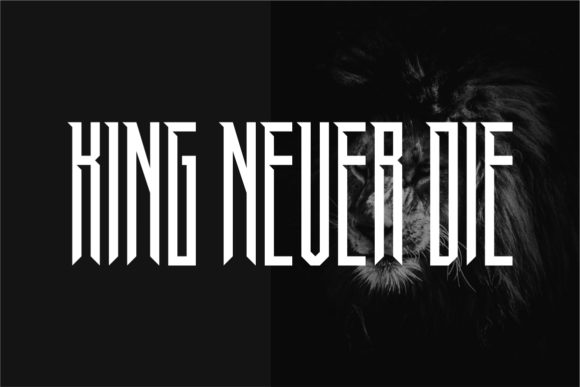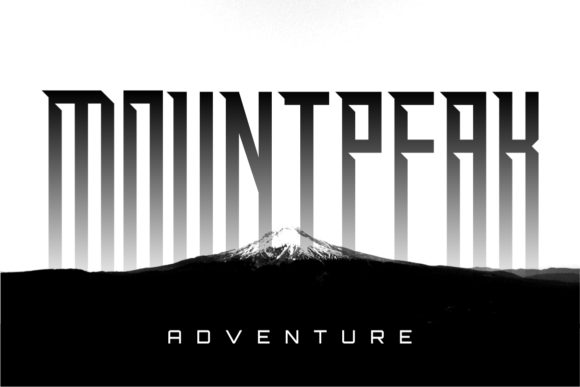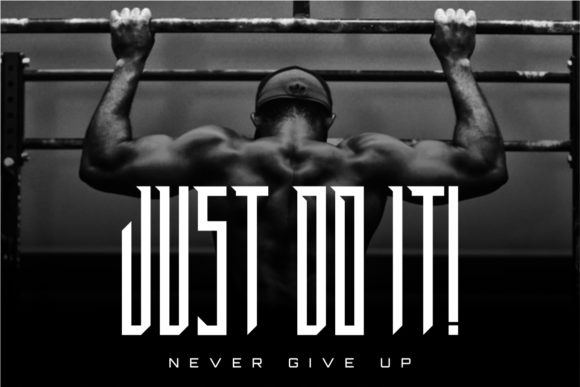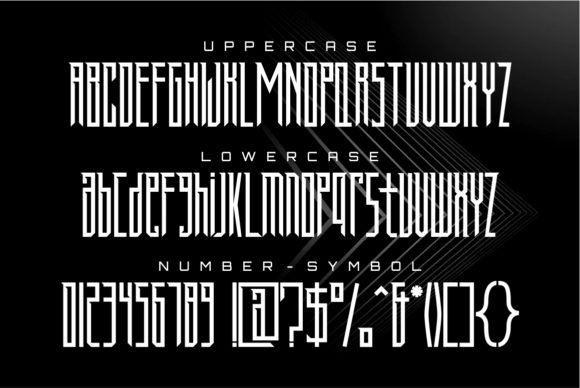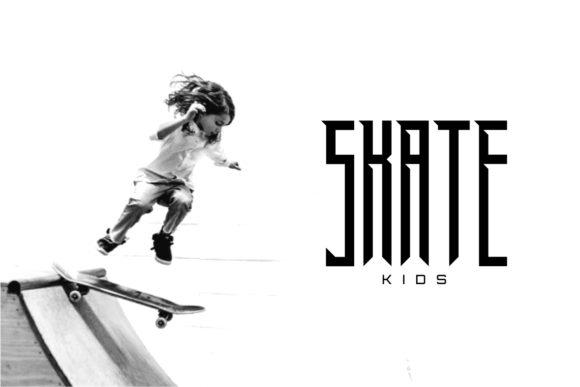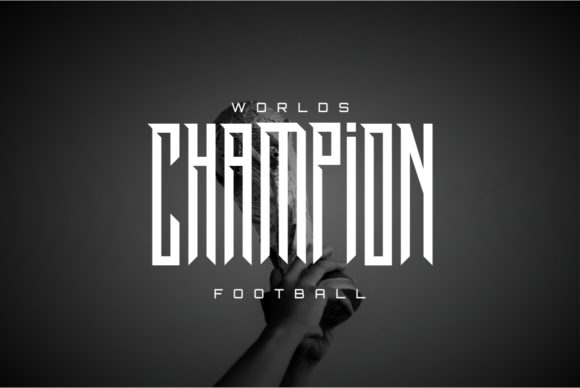
Unleash Your Creativity with Armor Font: The Ultimate Display Font
In the world of typography, fonts play a crucial role in conveying messages, expressing emotions, and creating visual identities. For designers, crafters, and marketers, finding the right font can make all the difference in their creative projects. If you’re looking for a powerful and versatile display font, look no further than Armor Font. In this article, we’ll explore the features, benefits, and uses of Armor Font, and why it’s a must-have for your design arsenal.
What is Armor Font?
Armor Font is a stunning condensed display font that boasts sharp ends and a geometric look. Its sleek and modern design makes it perfect for a wide range of applications, from sports and branding to posters, logos, headers, and apparel designs. With its bold and edgy appearance, Armor Font is sure to grab attention and leave a lasting impression.
Key Features of Armor Font
- Condensed Design: Armor Font is a condensed font, which means it’s narrower and taller than regular fonts. This makes it ideal for headlines, titles, and short phrases where you want to make a big impact.
- Sharp Ends: The sharp ends of Armor Font give it a bold and edgy look that’s perfect for sports, action, and energy-related designs.
- Geometric Look: The geometric design of Armor Font makes it versatile and easy to pair with other fonts and design elements.
- Highly Legible: Despite its condensed design, Armor Font is highly legible, even at smaller sizes.
Uses of Armor Font
Armor Font is a versatile font that can be used in a variety of creative projects, including:
- Sports Designs: Armor Font is perfect for sports-related designs, such as team logos, jerseys, and promotional materials.
- Branding and Logos: The bold and edgy design of Armor Font makes it ideal for branding and logos, especially for companies that want to convey a sense of strength and energy.
- Posters and Flyers: Armor Font is a great choice for posters and flyers, where you want to grab attention and make a big impact.
- Headers and Titles: Use Armor Font to create bold and eye-catching headers and titles for your website, blog, or social media channels.
- Apparel Designs: Armor Font is perfect for apparel designs, such as t-shirts, hoodies, and hats.
Benefits of Using Armor Font
So, why should you use Armor Font in your creative projects? Here are just a few benefits:
- Unique and Memorable: Armor Font is a unique and memorable font that will help your designs stand out from the crowd.
- Versatile: Armor Font is highly versatile and can be used in a wide range of creative projects.
- Easily Customizable: Armor Font is easily customizable, so you can adjust it to fit your design needs.
- High-Quality: Armor Font is a high-quality font that’s designed to deliver exceptional results.
In conclusion, Armor Font is a powerful and versatile display font that’s perfect for designers, crafters, and marketers. With its condensed design, sharp ends, and geometric look, Armor Font is ideal for a wide range of creative projects, from sports and branding to posters, logos, and apparel designs. Whether you’re looking to make a bold statement or create a lasting impression, Armor Font is a must-have font for your design arsenal.